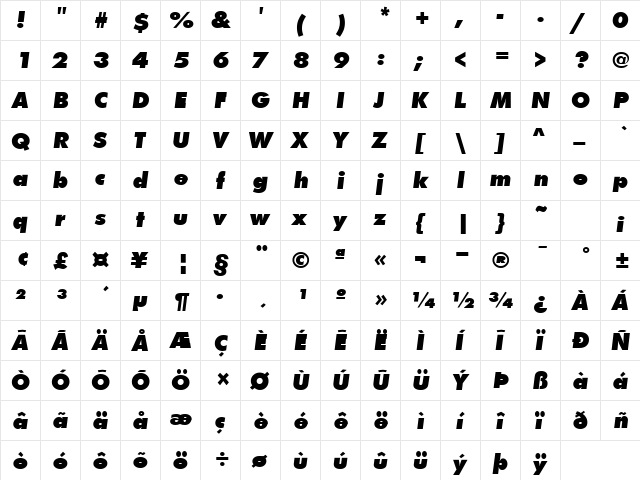
FunctionX Bold Italic
Design Context for FunctionX Typeface
FunctionX has an approachable, lighthearted character — its loose, expressive forms are well-suited to children's content, casual branding, and fun-first design. Its italic angle brings a sense of urgency and motion to the letterforms.
Well-suited to food and beverage brands with personality, educational materials, and fun-forward identities.
Font Pairing: Pairs well with a rounded or humanist sans for body copy, maintaining the friendly tone without relying on FunctionX to carry extended reading.
Pro Tip: Use FunctionX at larger display sizes where its expressive character can land. Pair with a clean, simple sans for body copy to maintain readability.